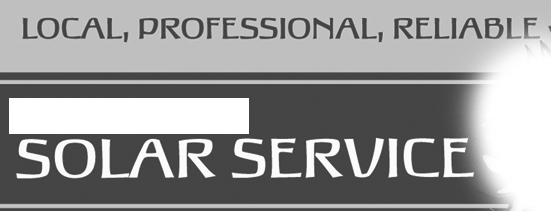
ooh I got it
Myfonts/what the font found it as Galicia.
@Buda Right! The client’s old G.D. used Galicia exclusively in their marketing. I have a deadline and no desire to reinvent their wheel!
As novelty fonts go… well… it could be worse ![]()